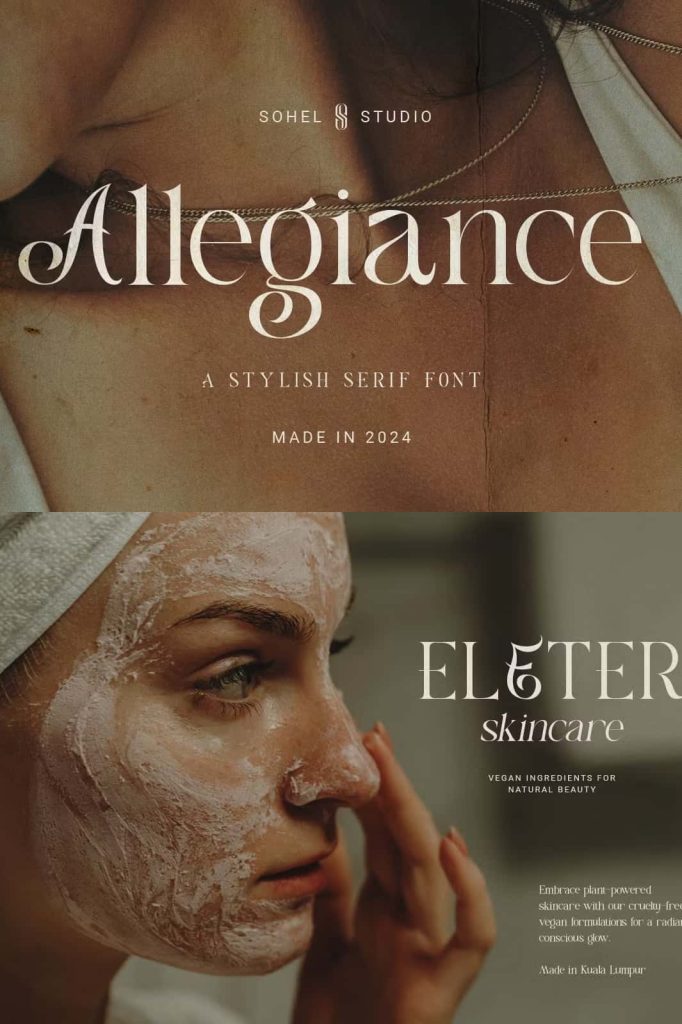
Introducing Allegiance, an elegant thin serif font designed to add a touch of luxury to your design projects. With its unique alternates, Allegiance offers incredible creative flexibility, making it ideal for branding, invitations, magazines, logos, and a variety of other creative projects.